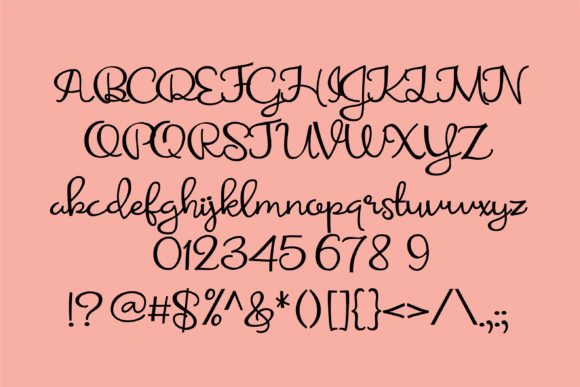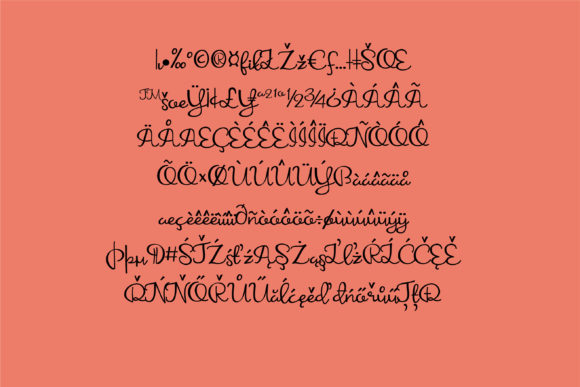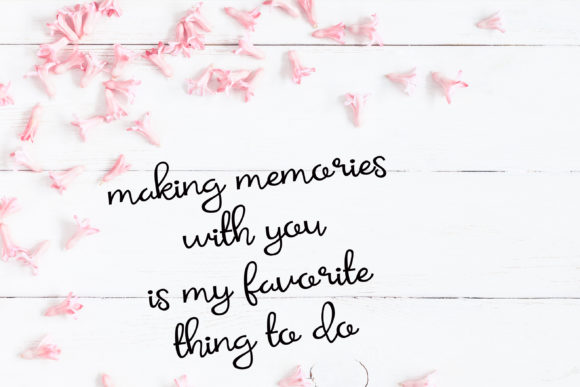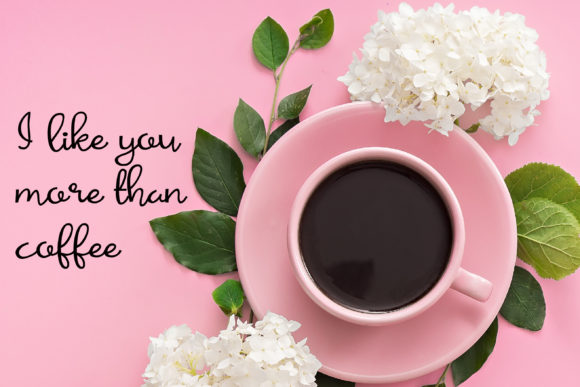
HomeScript FontsElopement Font Script Fonts Elopement Font FacebookXPinterestWhatsApp Elopement Font Poster 2 Elopement Font Poster 3 Elopement Font Poster 4 Elopement Font Poster 5 About Elopement Font This casual hand-crafted script has a medium weight and makes a great font for crafting, journaling and more. DOWNLOAD NOW People also explored Valentina Font Egyptian Monograms Easter Font Magical Flower Font Panoptic Pastel Font Agreeable Font Fisherman Font Miguelno Carlota Font Kitti Script Font 346 0 TagsElopement Font Previous articleSeriously FontNext articleSnickerdooscript Font LEAVE A REPLY Cancel reply Comment: Please enter your comment! Name:* Please enter your name here Email:* You have entered an incorrect email address! Please enter your email address here Website: Save my name, email, and website in this browser for the next time I comment. Personal Use Free Messages Personal Use Free Read more about this font Black Personal Use Free Read more about this font Dealisya Personal Use Free Read more about this font Histeria Bites Personal Use Free Read more about this font BLOG The 10 Best Handwriting Fonts to Add Personality to Your Designs 10 of the Best Handwriting Fonts for Adding Personality to Your Designs There will undoubtedly be no other better choice than handwriting fonts to give... Exploring Font Trends Transform Your Website: Elevate Your Typography with 7 Best Web Font Generators Best Fonts for T-Shirt Design – Top 2025 Picks